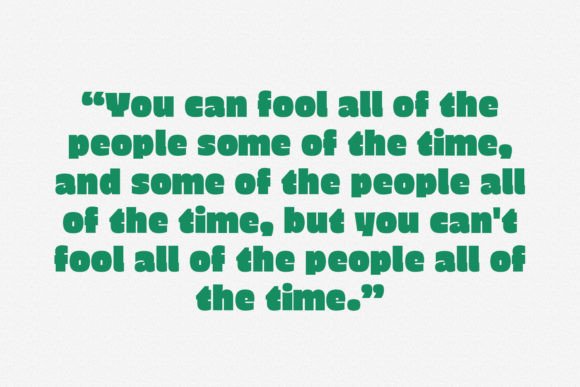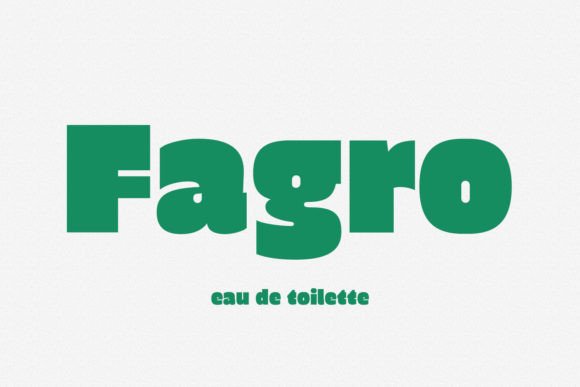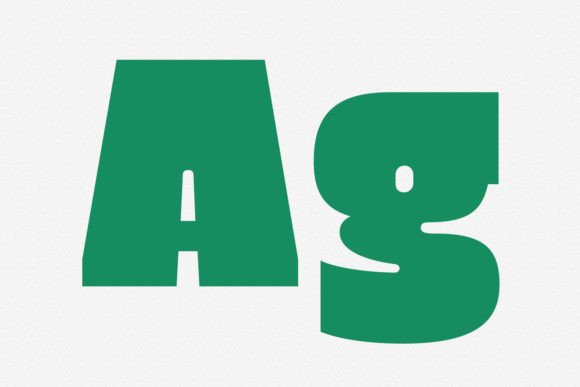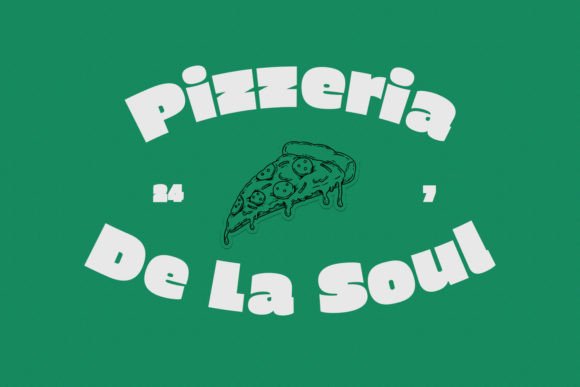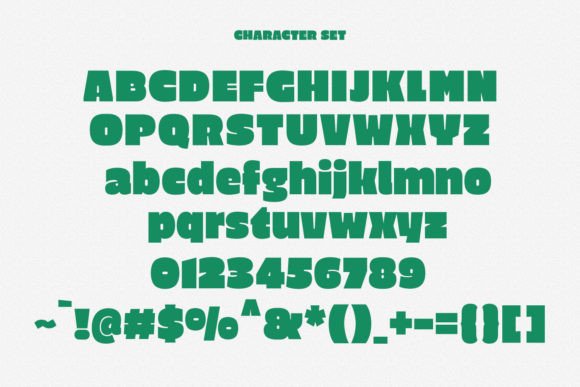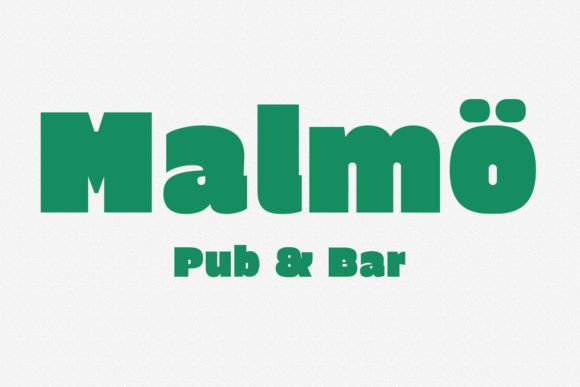
Discover the Perfect Balance of Fun and Sophistication with the Bollity Font
Imagine you’re brainstorming ideas for a new logo design, and suddenly, a spark of creativity hits you – you envision a bold, playful font that captures the essence of your brand’s personality. This is exactly what the Bollity Font is designed to deliver – a modern sans Display font that effortlessly balances fun and sophistication.
As a versatile font that supports over 100 languages, Bollity is an ideal choice for designers looking to create visually stunning logos, social media graphics, movie titles, and book covers. Its heavy stroke and ligature features make it perfect for short text, while its alternates offer endless possibilities for creative expression.
- Font Family: Bollity comes in 2 font families: Bollity Regular and Bollity Bold
- Character Set: The font includes a wide range of characters, including Latin, Cyrillic, and Greek alphabets, as well as punctuation marks and symbols
- Unique Characteristics: Bollity Font features a unique blend of modern and vintage elements, with a distinctive flair and personality that sets it apart from other fonts
Bollity Font Review
As a designer, I was excited to dive into the world of Bollity Font and see what it has to offer. Overall, I found it to be a unique and interesting addition to my font library. ✨ Here are some of its strengths:
- Highly customizable: Bollity Font offers a wide range of options for customization, from font size and color to spacing and alignment.
- Unique aesthetic: The font’s bold, playful style makes it perfect for use in creative projects or designs that require a bit of whimsy.
However, there are a few limitations that I’d like to mention ⚠️:
- Lack of ligatures: While the font looks great at large sizes, I noticed that the letters don’t quite connect at smaller sizes, which can make text look a bit awkward.
- No italic or bold options: While the font’s default style is great for headings, I wish there were more options for creating emphasis or hierarchy in text.
Overall, I’d say that Bollity Font is a solid choice for designers looking for a unique, playful font to add some personality to their designs. With a bit more development to address the limitations I mentioned, it could be a real standout in the world of typography.
Tips for Getting the Most Out of Bollity Font
Use the Bollity Font in combination with bold and italic styles to create visually appealing headings and titles. Experiment with different font sizes and colors to achieve the desired effect. You can also use the font in conjunction with other design elements, such as images and shapes, to create a unique and engaging design.
The Bollity Font is ideal for use in creative projects, such as:
- Designing social media graphics and posts
- Creating presentations and reports
- Developing branding materials, such as logos and business cards
- Designing websites and landing pages
Alternatives to Bollity Font for Designers